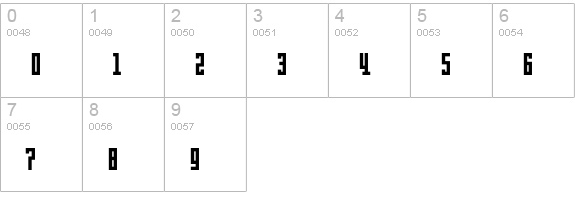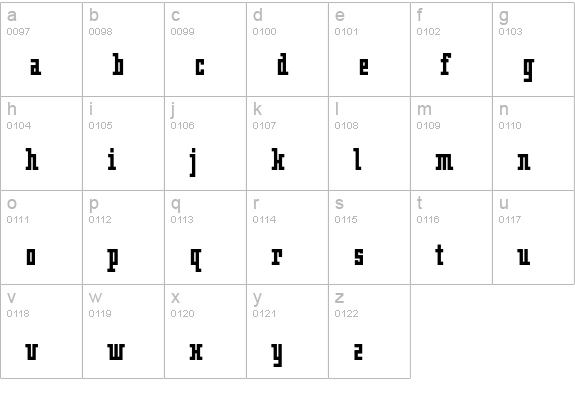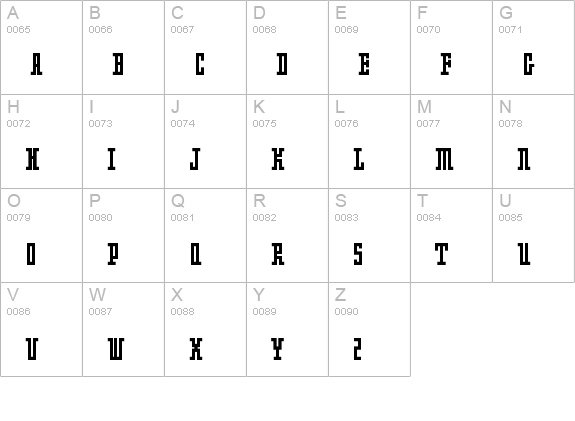
Discover the captivating elegance of OblongBold font, a modern and stylish typeface that commands attention with its bold and distinctive design. With its unique oblong shape and crisp lines, OblongBold exudes confidence and sophistication, making it the perfect choice for projects that require a touch of contemporary flair. What sets OblongBold apart is not just its striking appearance, but also the fact that it is available for free download at FontsMarket.com. This means that you can easily access this premium font without any cost, making it a valuable addition to your design toolkit. Whether you're working on branding, advertising, posters, or any other creative project, OblongBold's versatility and charm will elevate your work to new heights. Embrace the power of OblongBold and unleash your creativity with this exceptional font that is both striking and freely accessible.